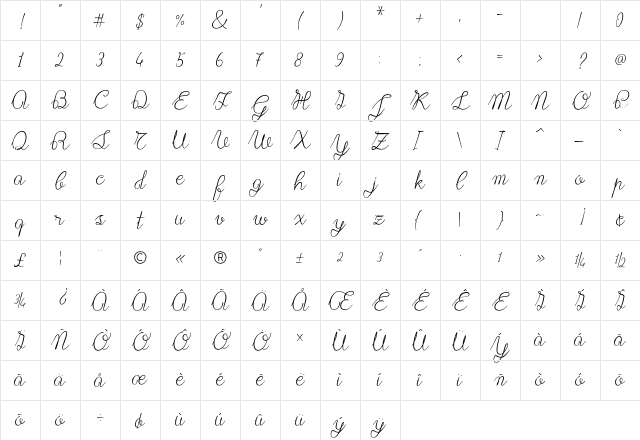
Complete Lace 1.0. Regular glyph index. Displaying only characters natively supported by Lace 1.0. Regular font.
Lace 1.0. is a composed and adaptable typeface that performs quietly and consistently across a wide range of design contexts.
Who designed the Lace 1.0. Regular font?
This font was published by Matteo Marco Milazzo. Check the technical specs section for copyright and designer details.